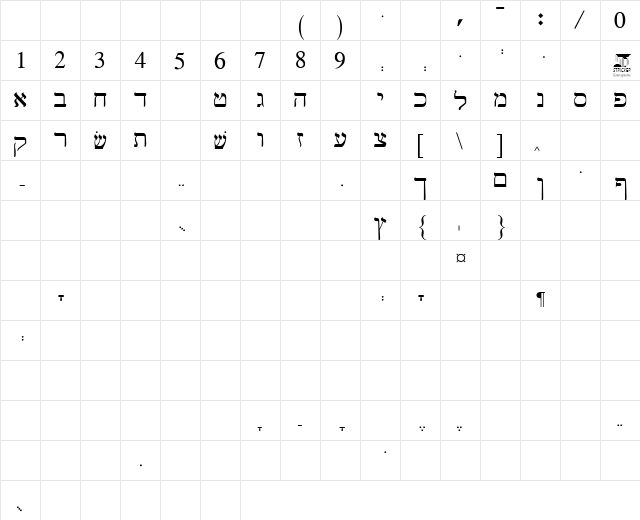
Hebr䩳ch (HEBGRI) Regular
Design Context for Hebr䩳ch (HEBGRI) Typeface
Hebr䩳ch (HEBGRI) is a composed and adaptable typeface that performs quietly and consistently across a wide range of design contexts.